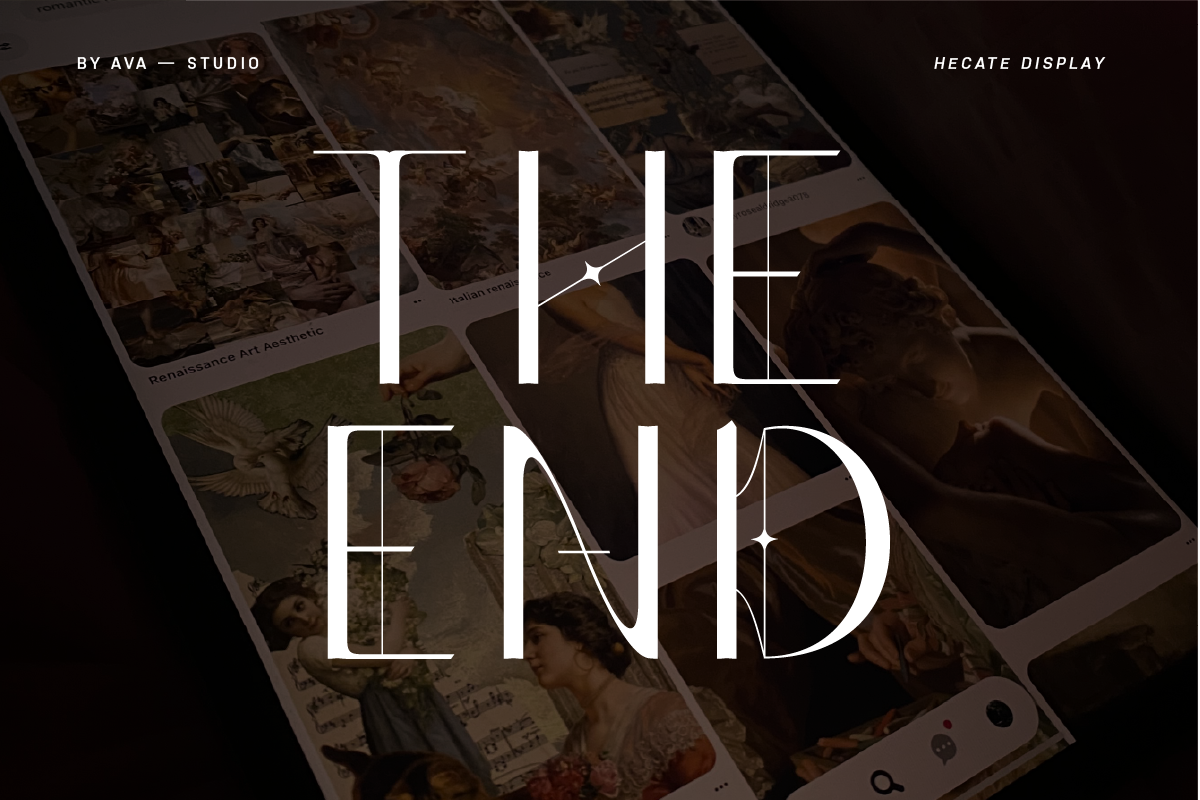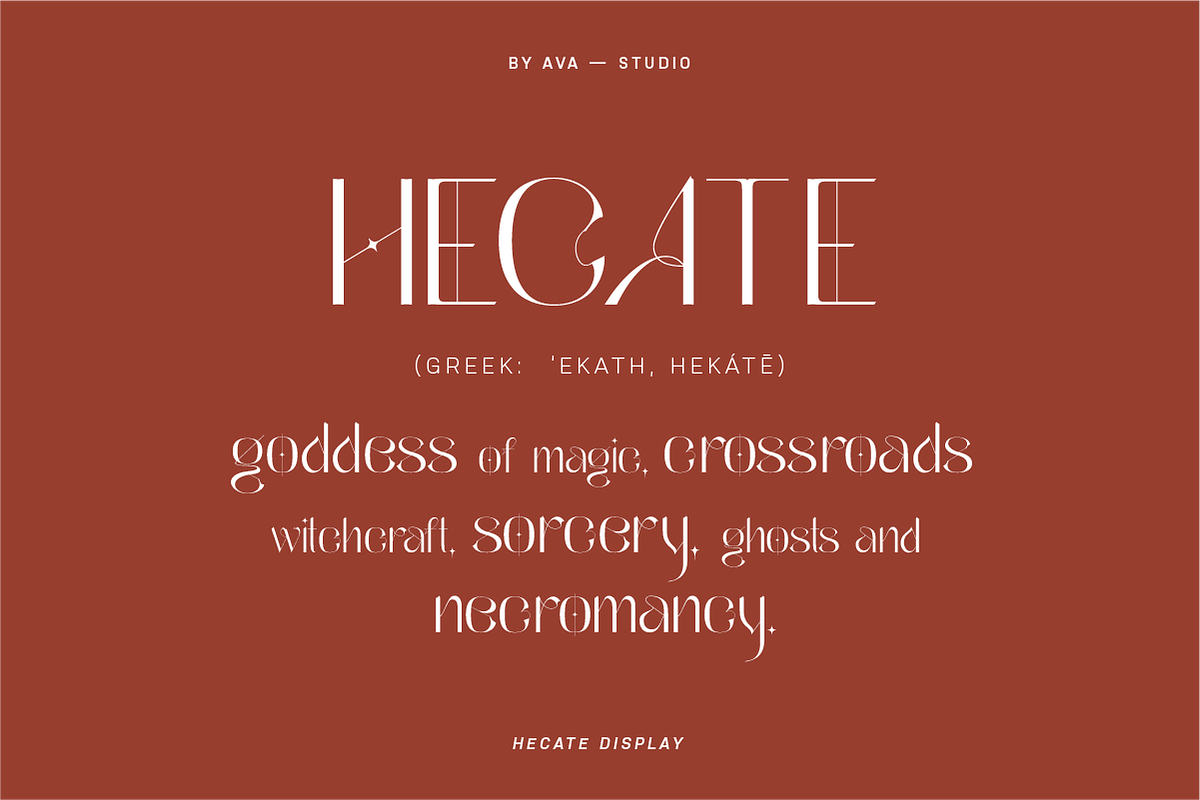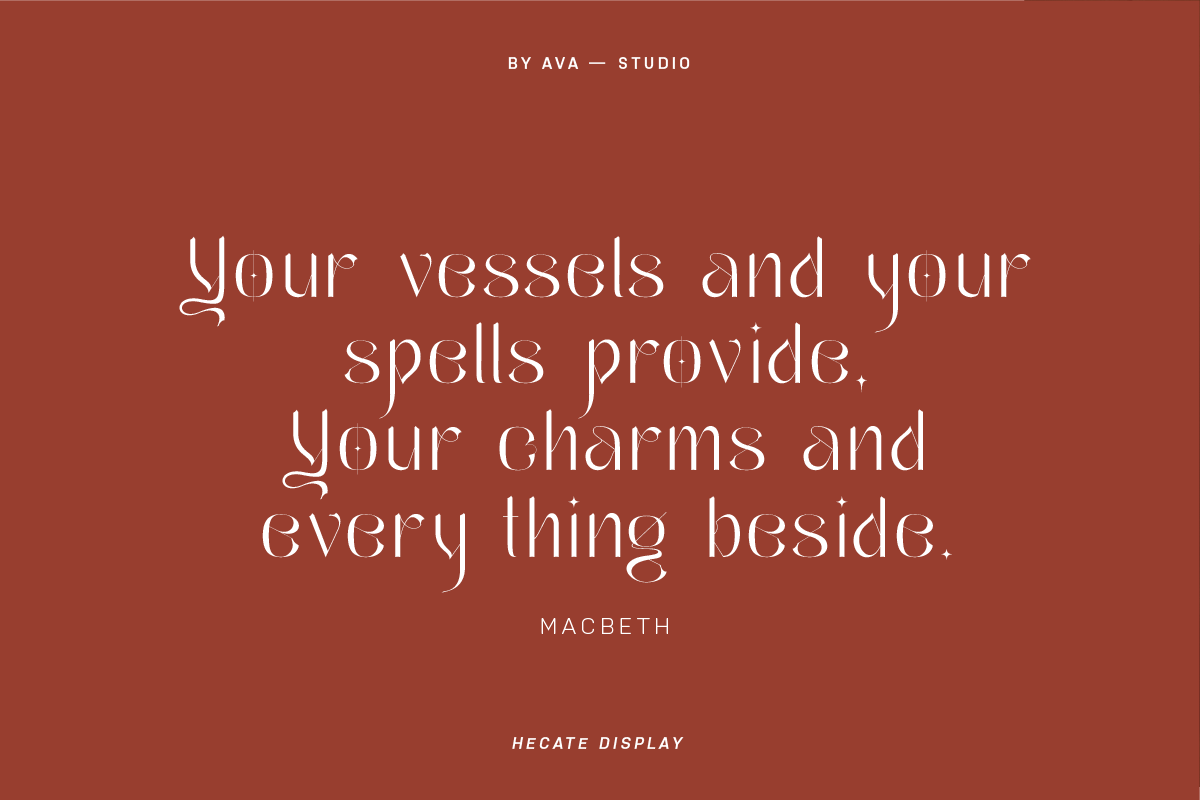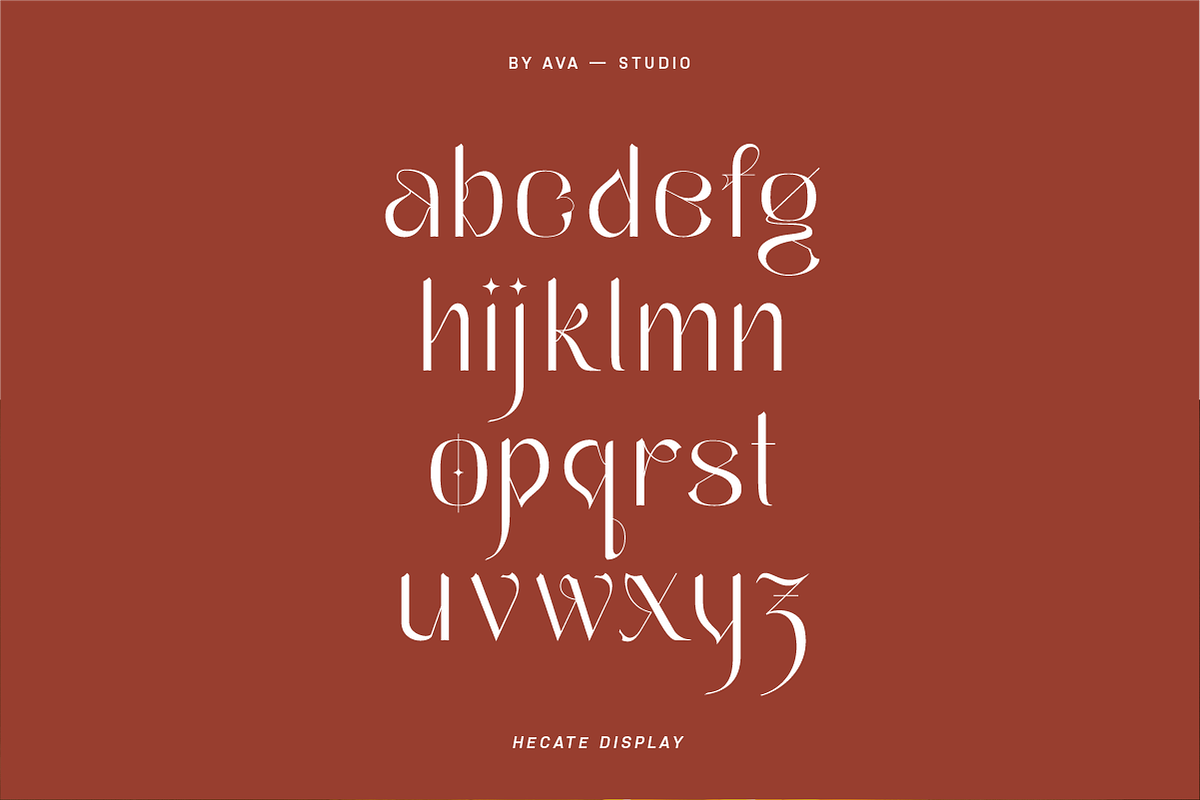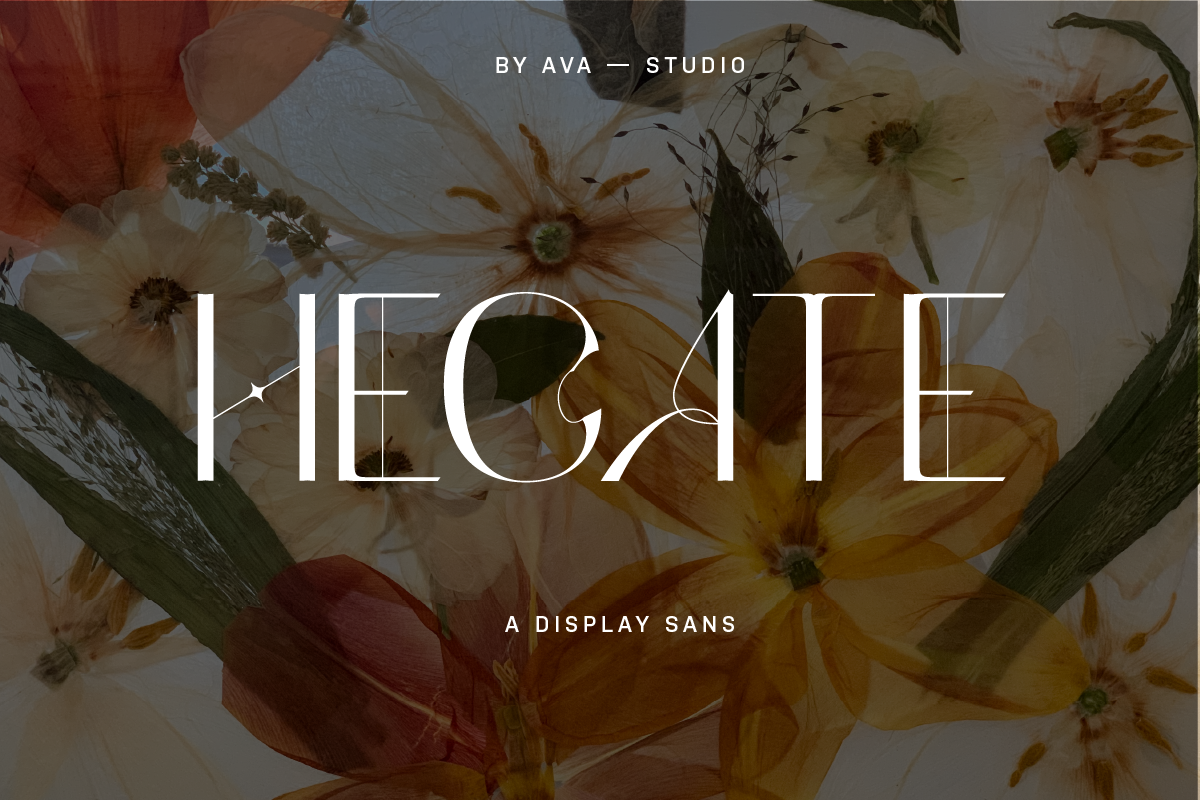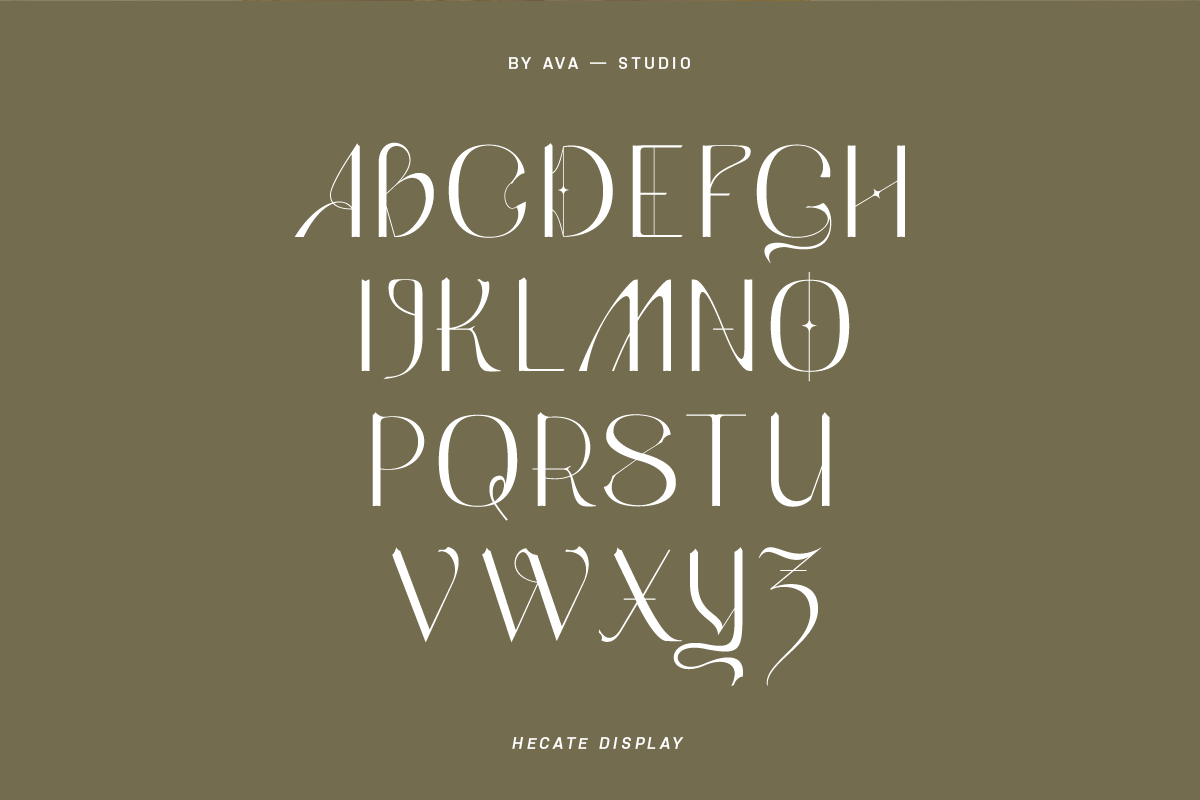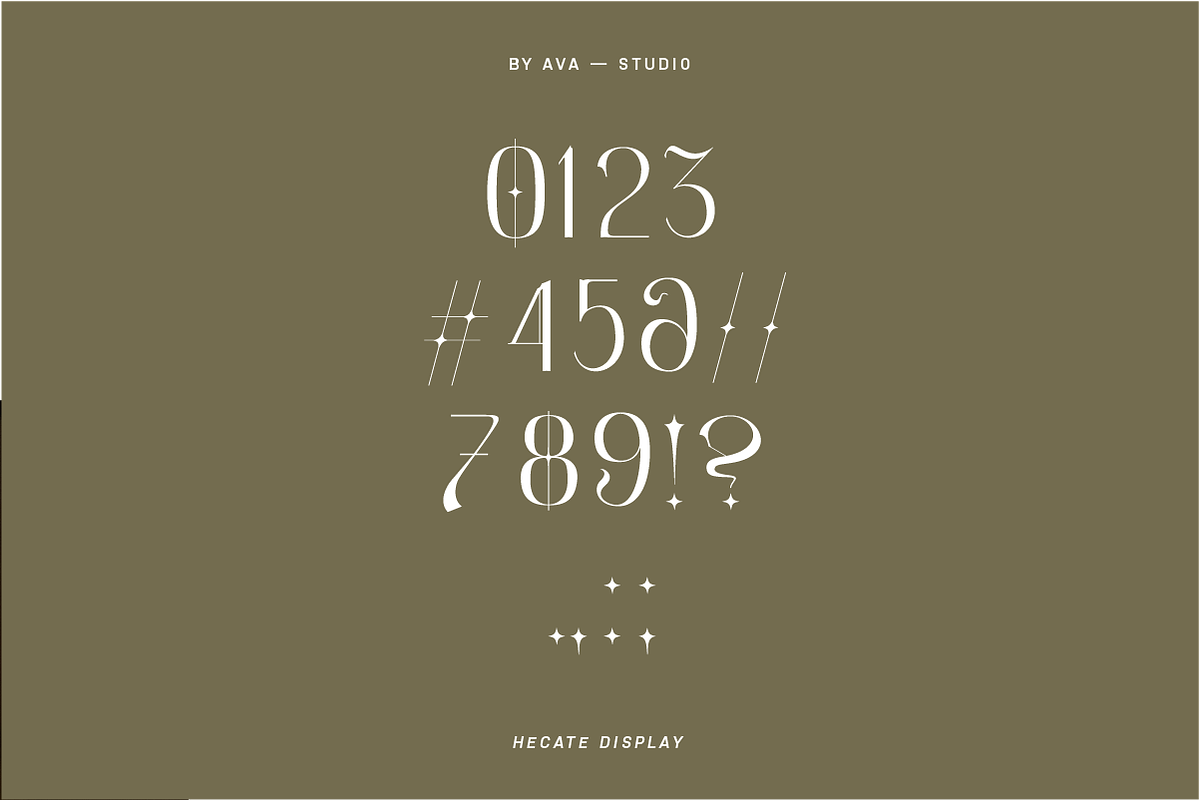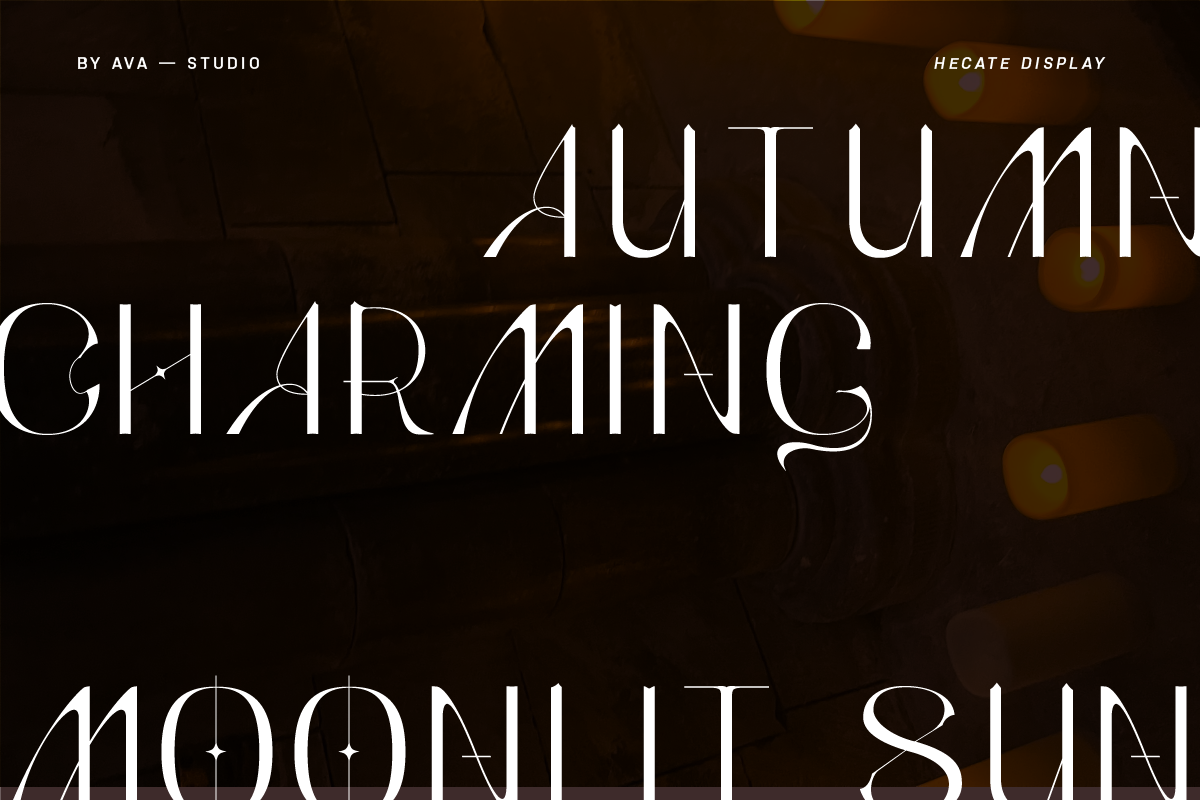
Hecate Sans Display
Introducing Hecate Sans, a sister to the serif that takes inspiration from the enigmatic Greek goddess Hecate and the ancient malleus maleficarum, embodying the essence of a modern witch.
With its sophisticated yet edgy appearance, Hecate Sans is perfect for conveying a sense of magic, independence, and enchantment in modern design projects. Let the spirit of the witching hour infuse your creations with Hecate Serif.